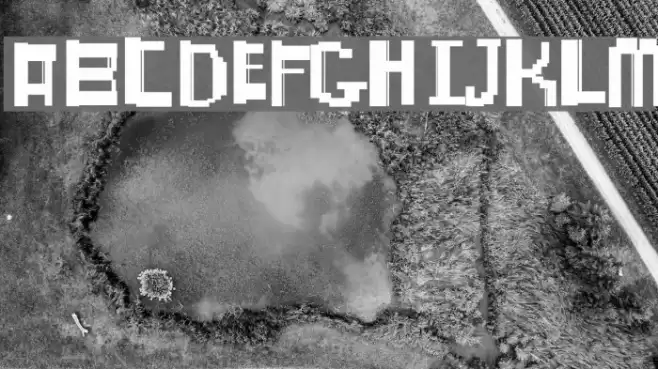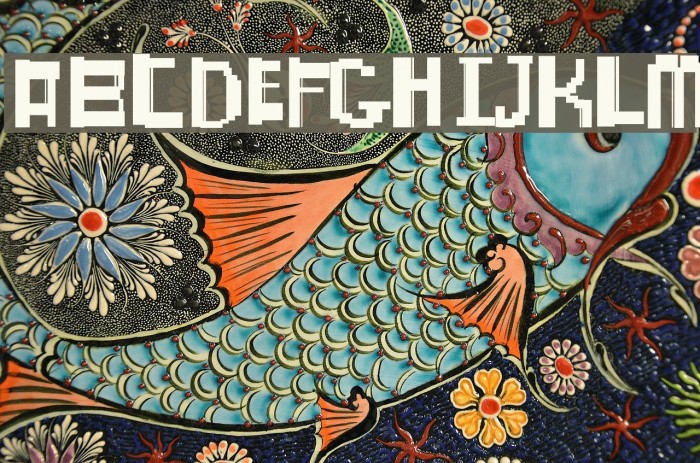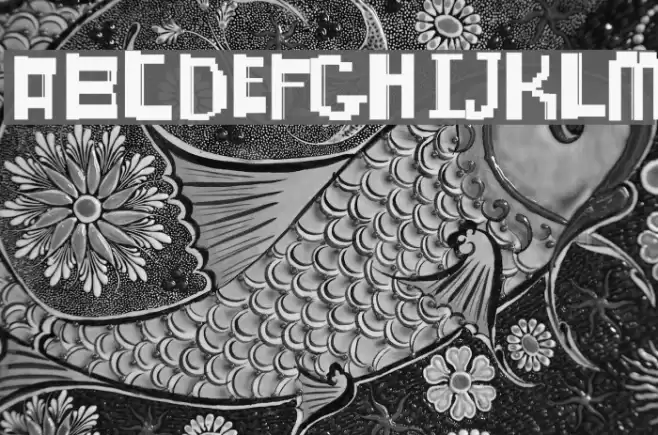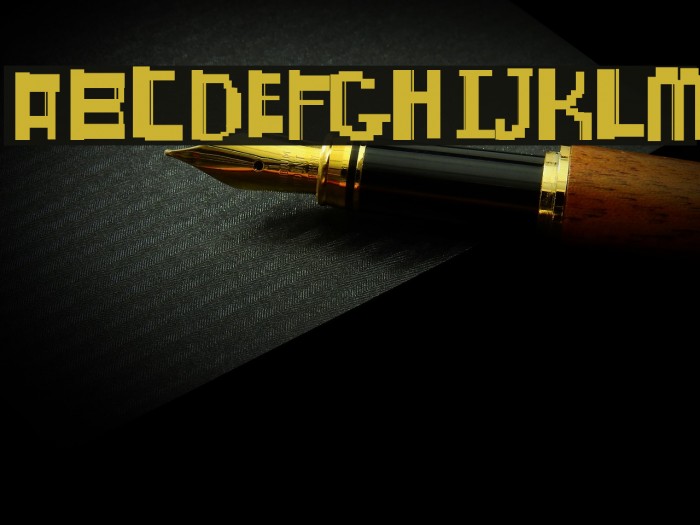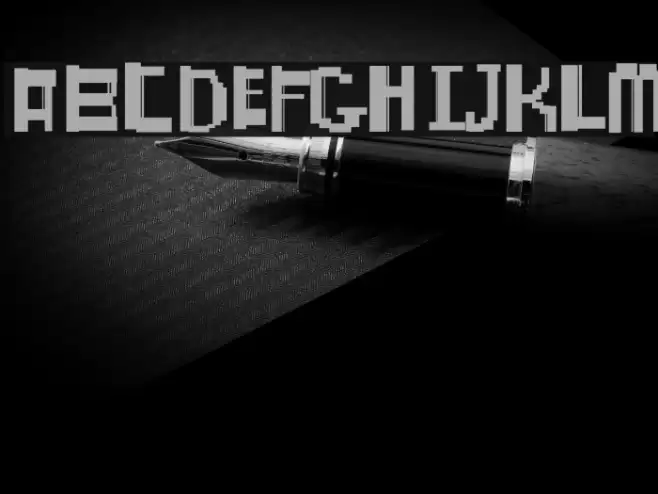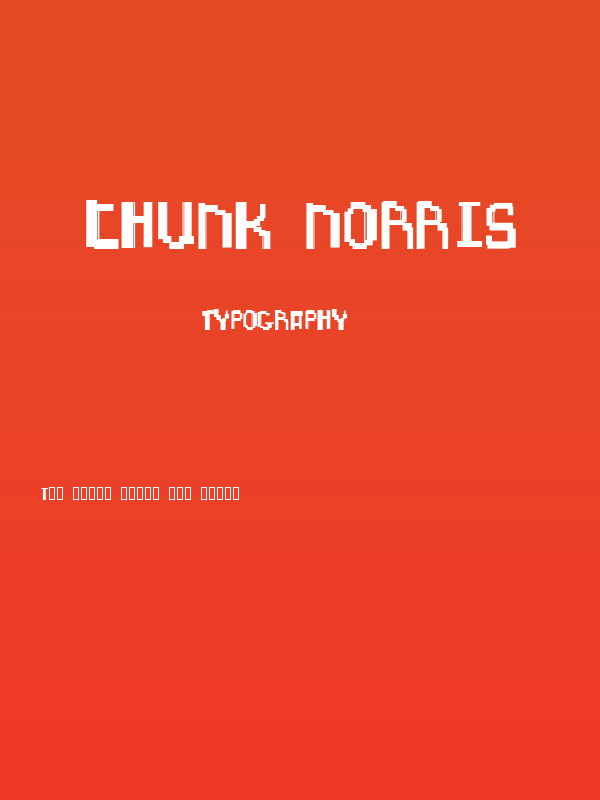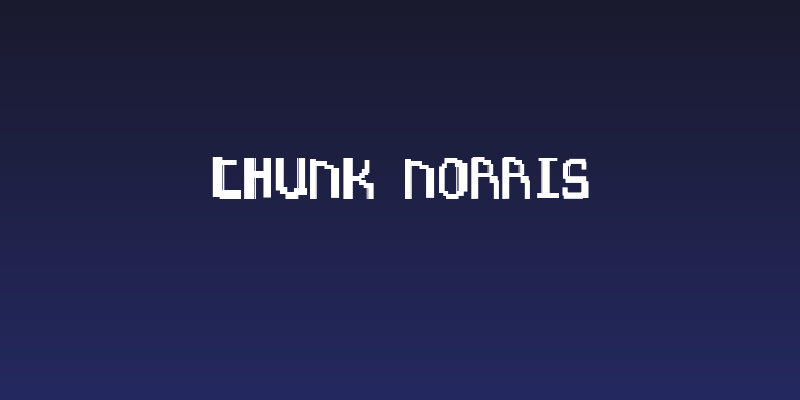
Chunk Norris Font
Chunk Norris Description
This font features a bold, blocky style with a distinctly pixelated appearance, reminiscent of early digital or arcade game typography. The uppercase letters are uniformly designed with sharp, angular edges and consistent stroke widths, creating a strong and impactful visual presence. The font's geometric structure and uniformity make it highly legible, even at smaller sizes. Its retro aesthetic is both nostalgic and modern, appealing to those looking for a vintage digital look. The absence of lowercase letters and special characters suggests a focus on simplicity and clarity, ideal for titles or headings.
| Proposed Projects | Ideal for video game design, retro-themed posters, digital art projects, and branding that requires a vintage tech feel. |